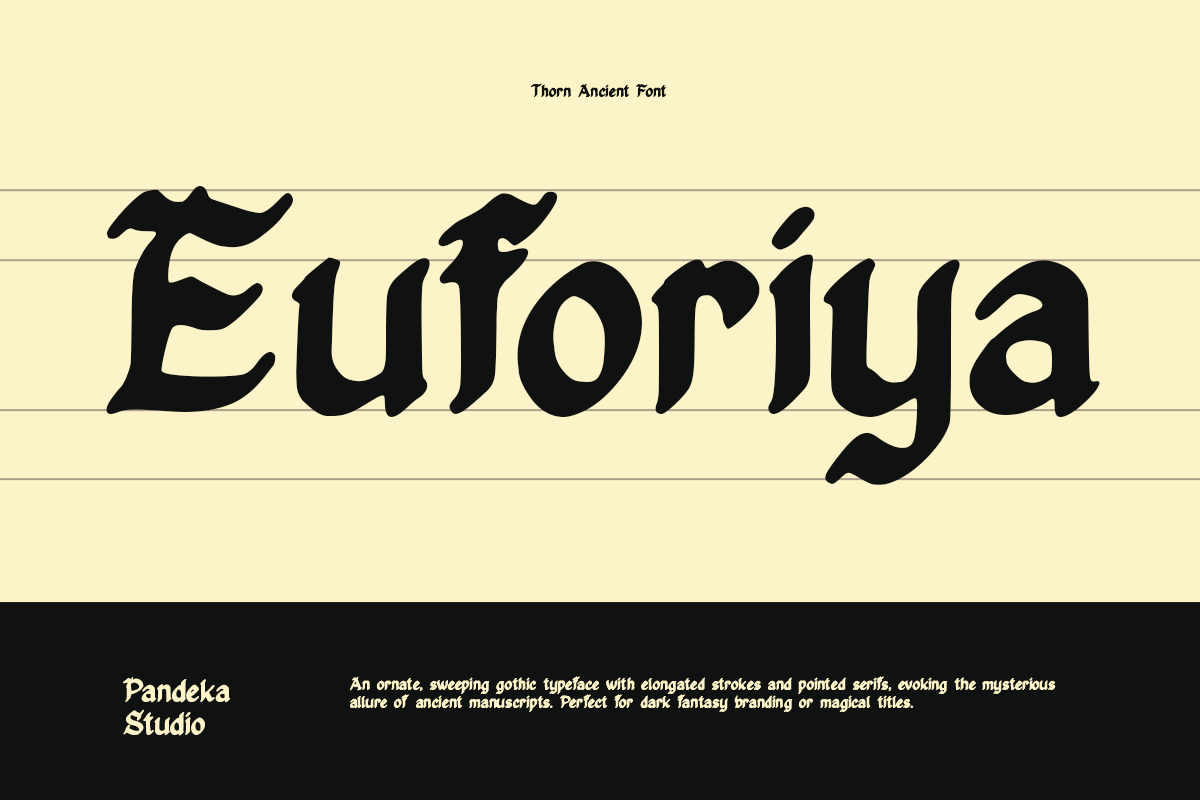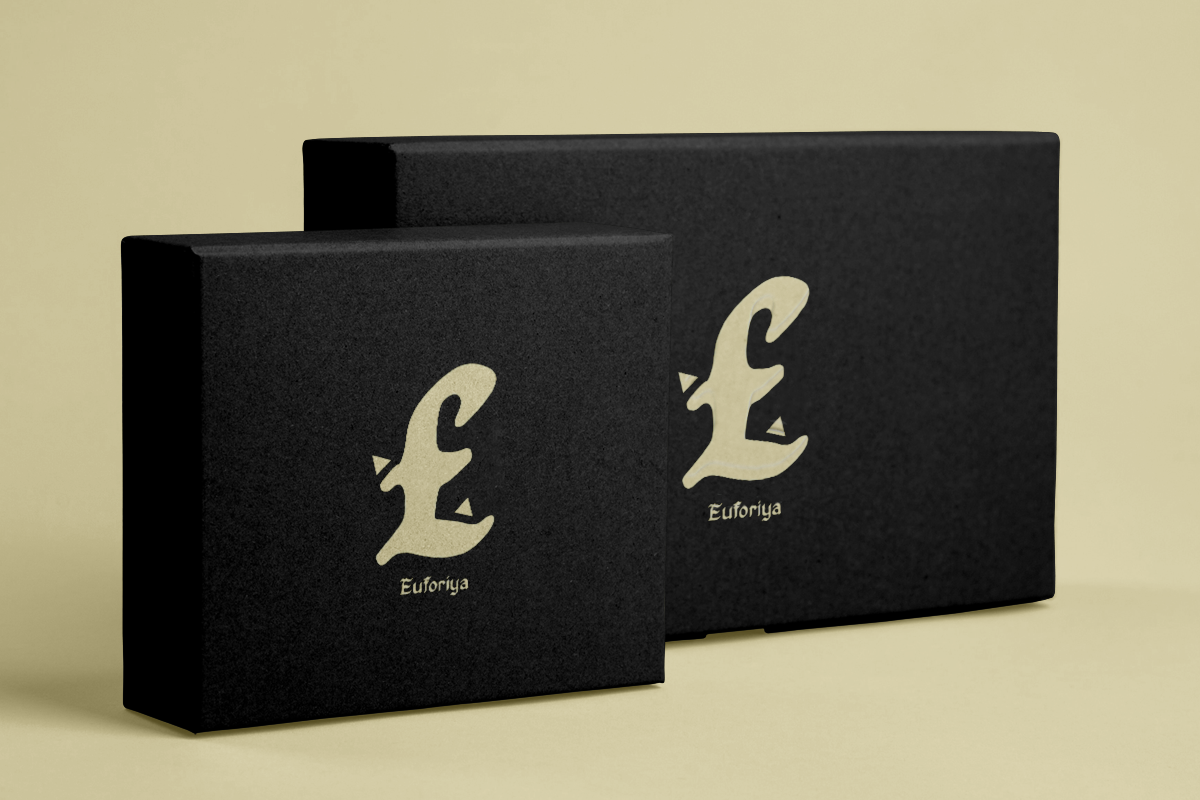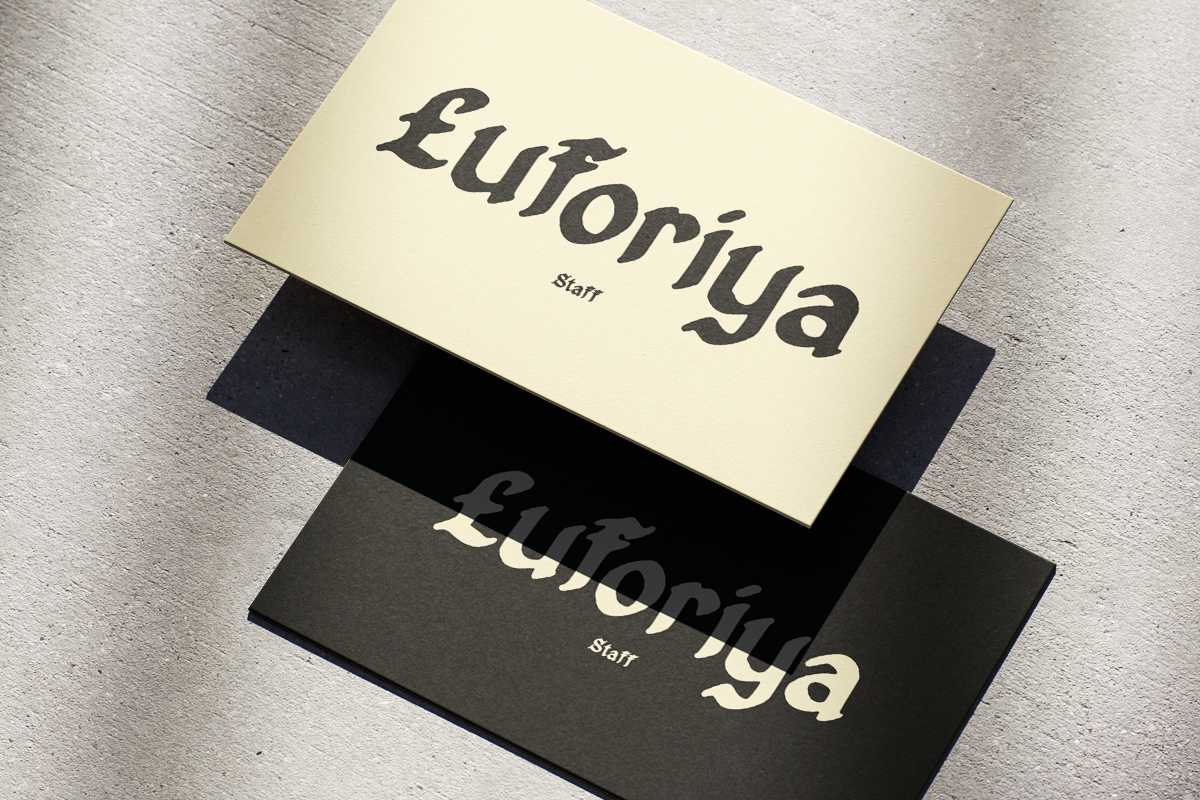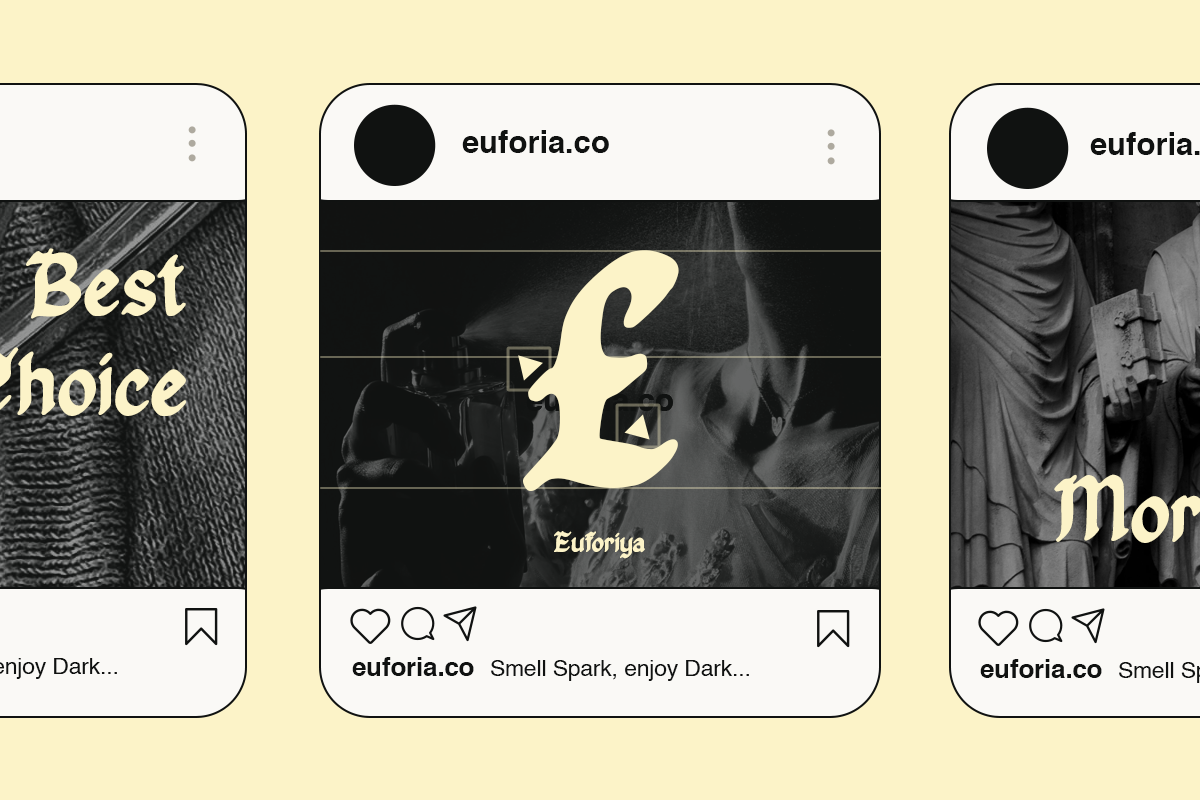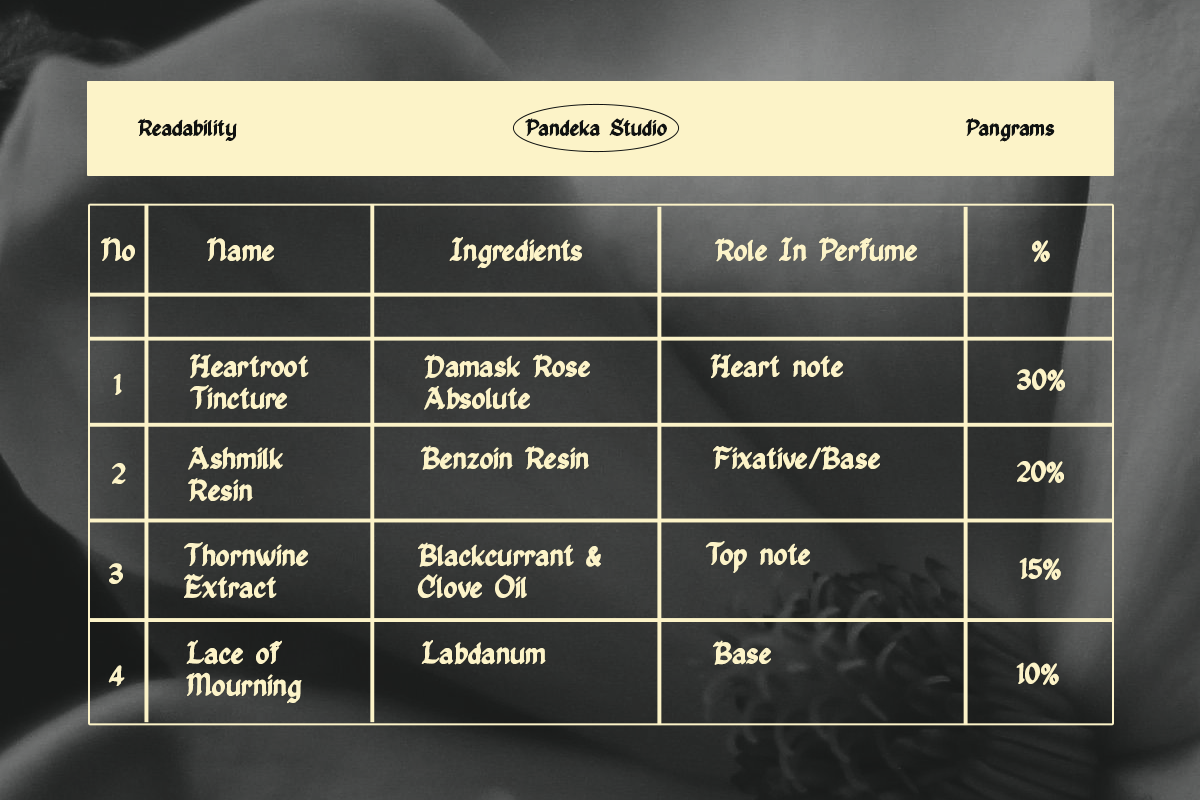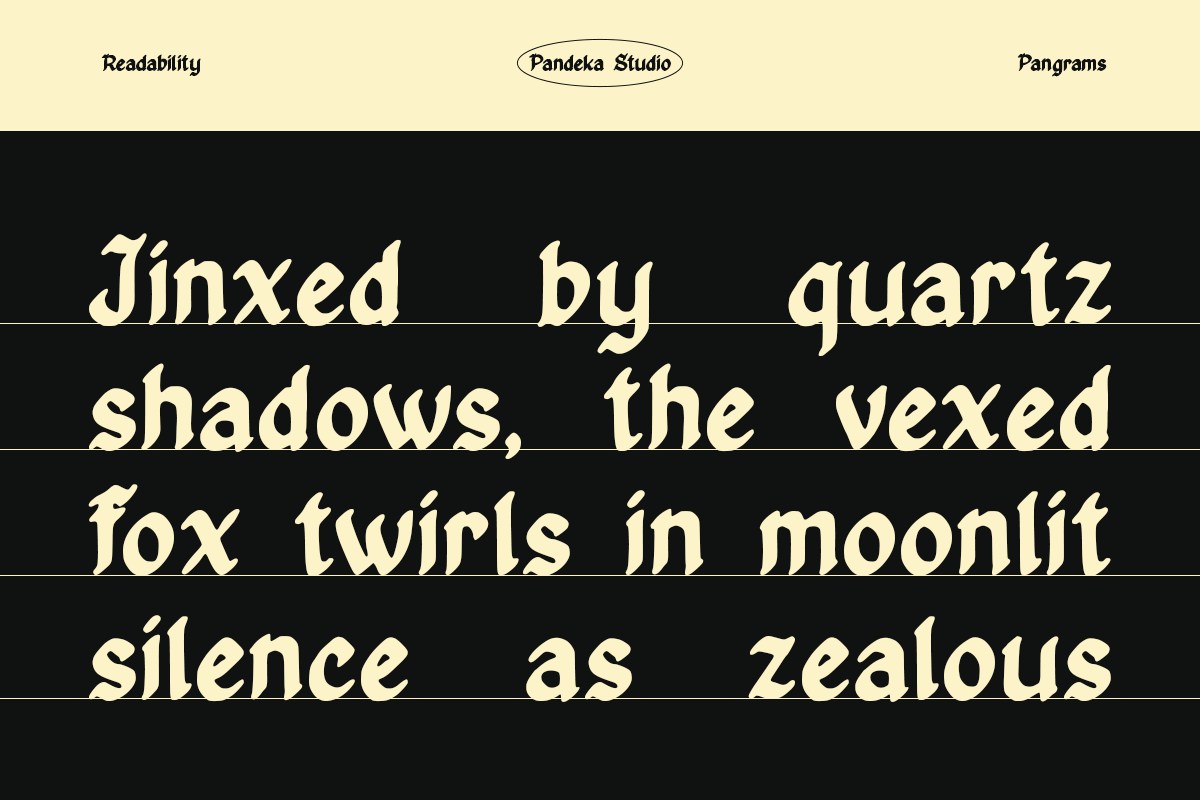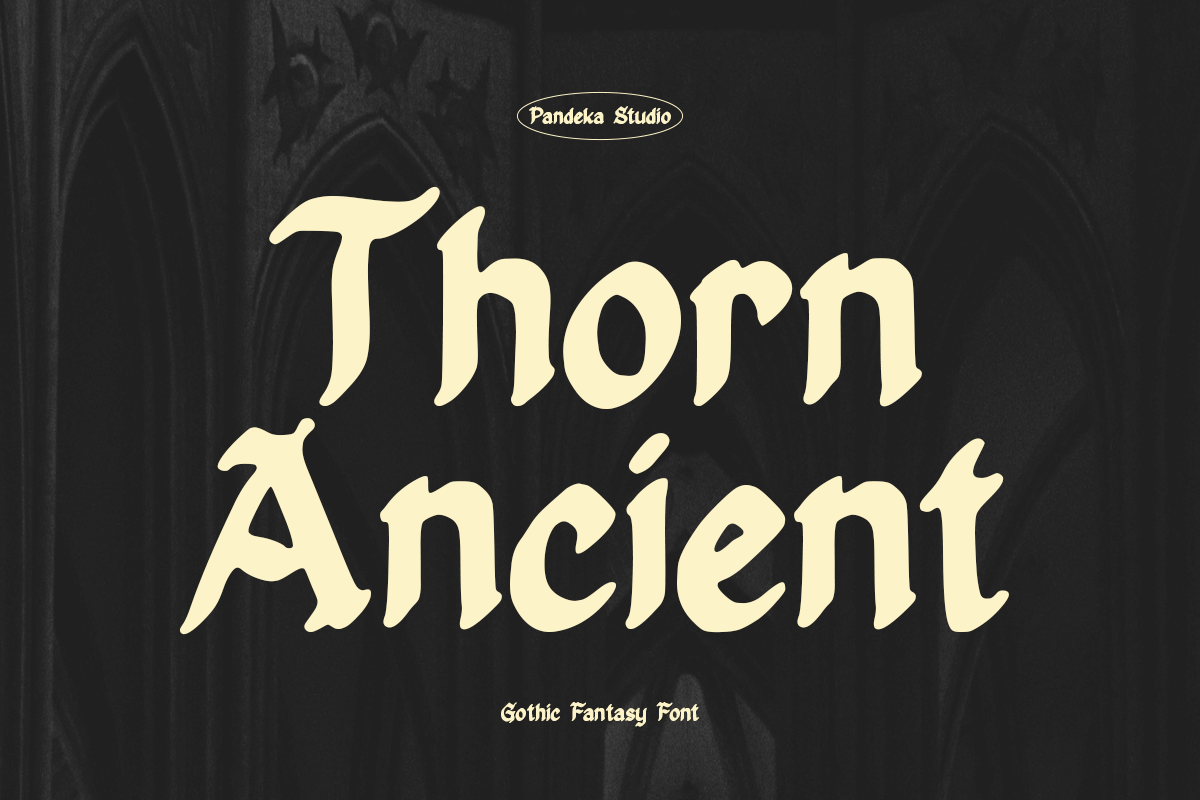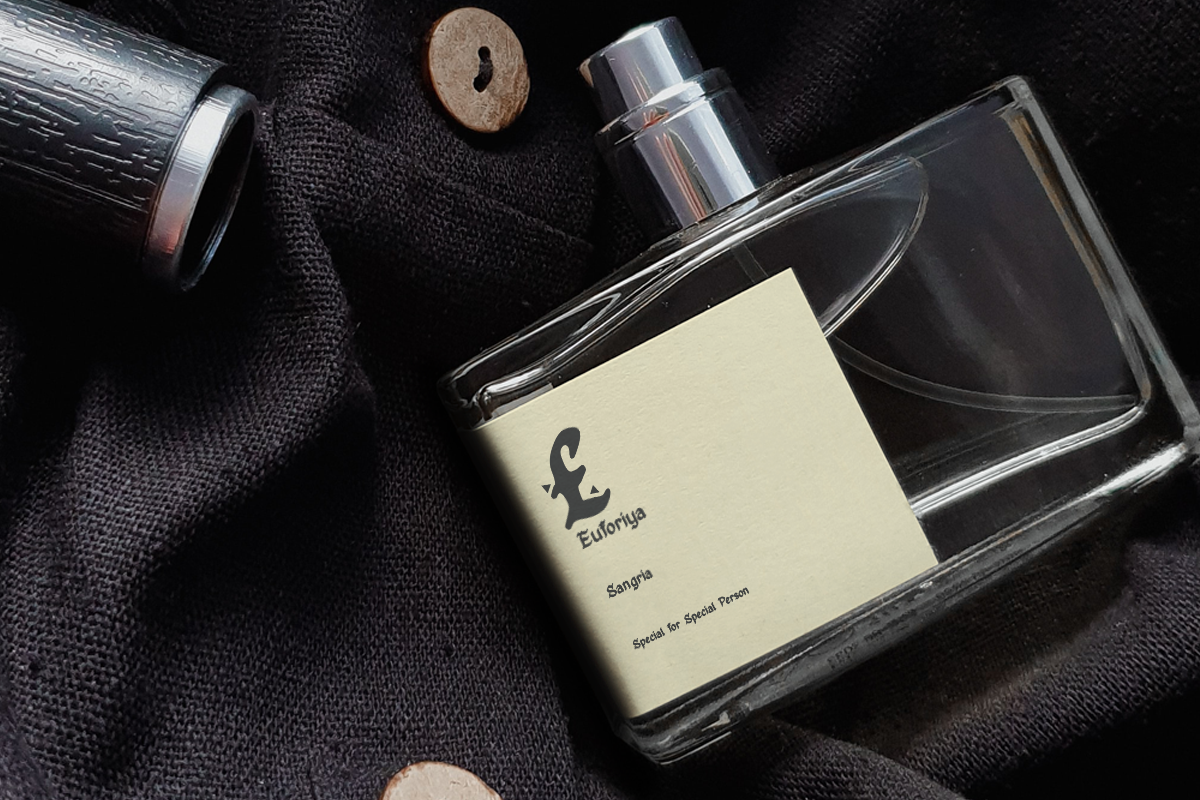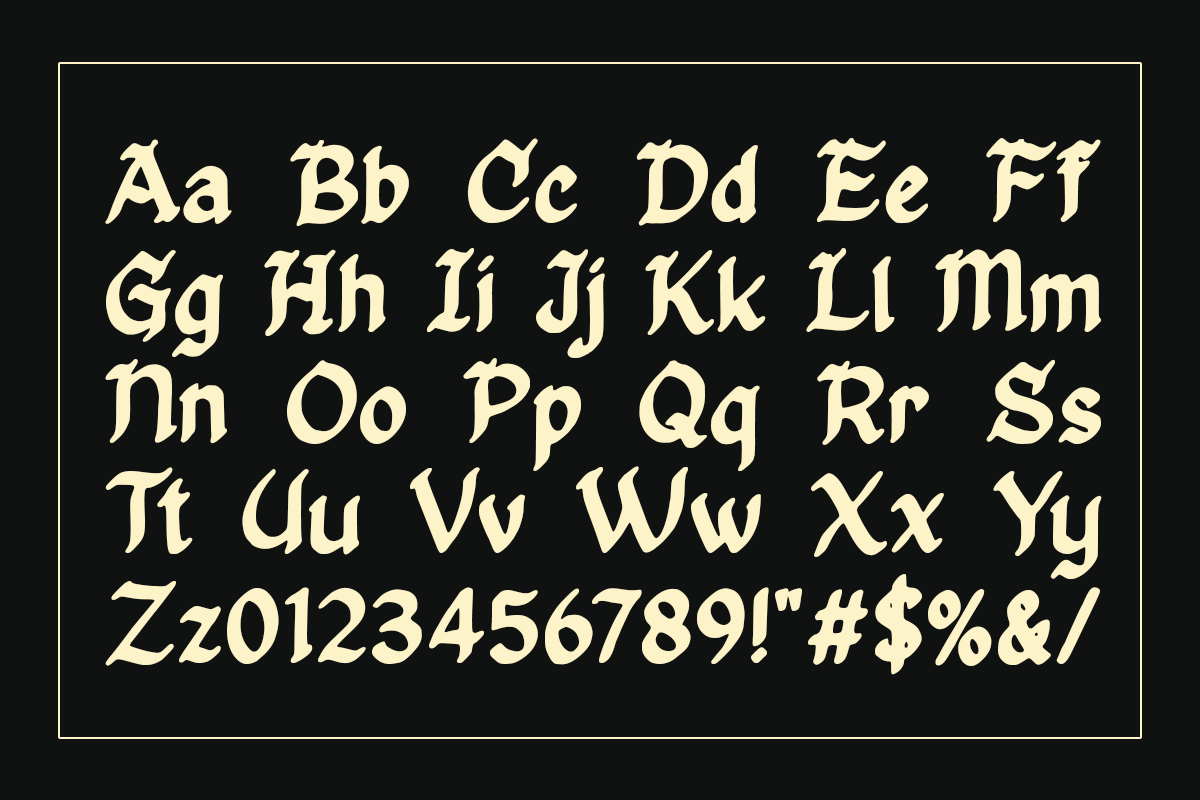
Thorn Ancient - Gothic Fantasy Font
Thorn Ancient is a bold gothic display font that blends medieval mystique with timeless fantasy aesthetics. Designed with sharp edges, dramatic curves, and intricate letterforms, this typeface brings a sense of mystery and power to any visual composition.
Perfect for fantasy titles, dark branding, game logos, book covers, movie posters, and vintage packaging, Thorn Ancient captures the essence of old-world craftsmanship while maintaining a modern, artistic edge. Each character is meticulously crafted to reflect gothic beauty and ancient storytelling.
Thorn Ancient comes in one regular style, featuring uppercase, lowercase, numerals, punctuation, and multilingual support, making it versatile for both digital and print projects.